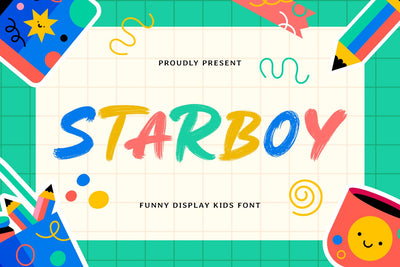
Starboy
Starboy is a vibrant and playful display font designed to capture the imagination of kids and gamers alike. Its bold and decorative style adds a whimsical charm that’s perfect for themes related to games, toys, esports, and youthful creativity. The font’s unique curves and lively details bring a sense of fun and energy to any design project, making it ideal for playful branding and exciting visuals.
With its modern yet approachable design, Starboy bridges the gap between decorative flair and usability. It’s perfect for logos, posters, packaging, and any creative project that calls for a touch of adventure. Whether you’re crafting a gaming banner, designing toy packaging, or creating a dynamic esport logo, Starboy stands out as the ultimate choice to communicate excitement and joy.